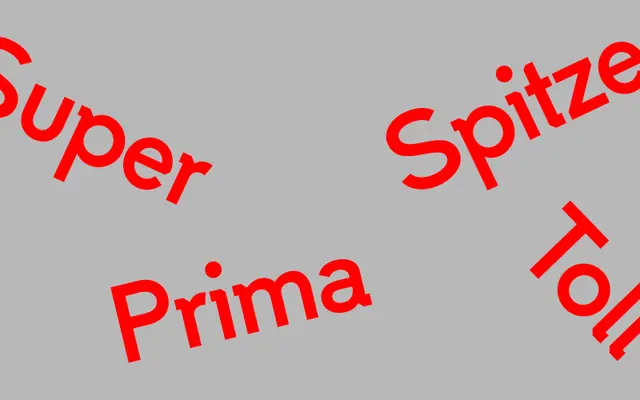
Superspitze
A bold geometric sans with humanist touches, offering an alternative stylistic set and decorative swash characters drawn from a near-century-old Schelter & Giesecke specimen book.
Designed by Patrick Martin, a graduate of Bauhaus University Weimar, this single-weight geometric sans sits between the precision of Futura and the warmth of more humanist designs. A secondary stylistic set simplifies forms for smaller text sizes, while a suite of Art Nouveau-influenced swash characters, taken from a Schelter & Giesecke specimen of around 100 years ago, provides decorative character suited to headlines and identity work. Language coverage spans 484 glyphs across a wide range of Latin-based scripts.
Explicitly inspired by bold geometric typefaces such as Futura, Erbar and Kabel, with slightly more humanist detailing; fits squarely within the geometric sans category.